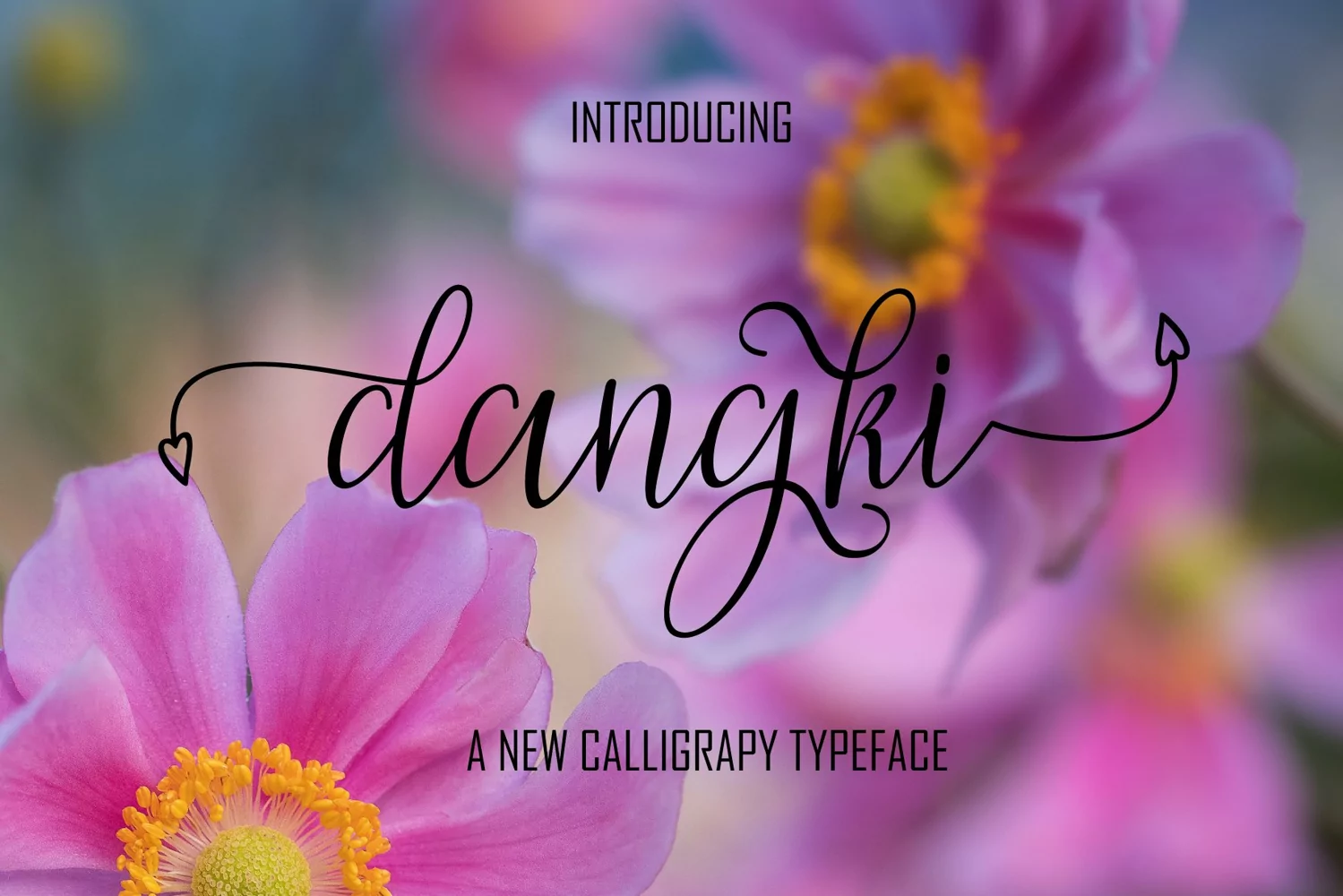
Dangki is a beautiful calligraphy font. With a smooth flow and connection, Dangki is a great choice for almost any project or design. With a full set of glyphs, including some sweet stylistic alternates, Dangki offers great versatility.